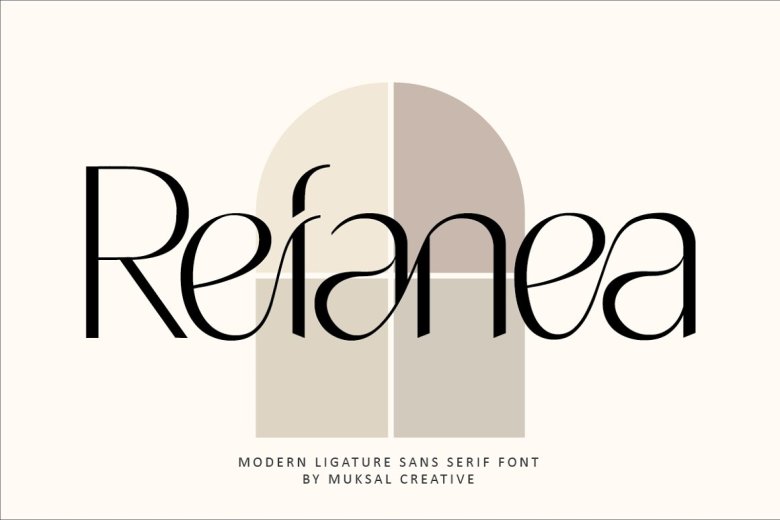
Refanea Font
Modern ligature rafanea sans serif font, special symbols and accents, ornaments and multilingual features. It is a very liberal font that can be easily read even when used in large or small size . Ideal for publication designs, logo identification, fashionable cloth identification, product labeling, magazine cover, or just as a fancy text overlaid on a background image.
Refanea Sans Serif Font